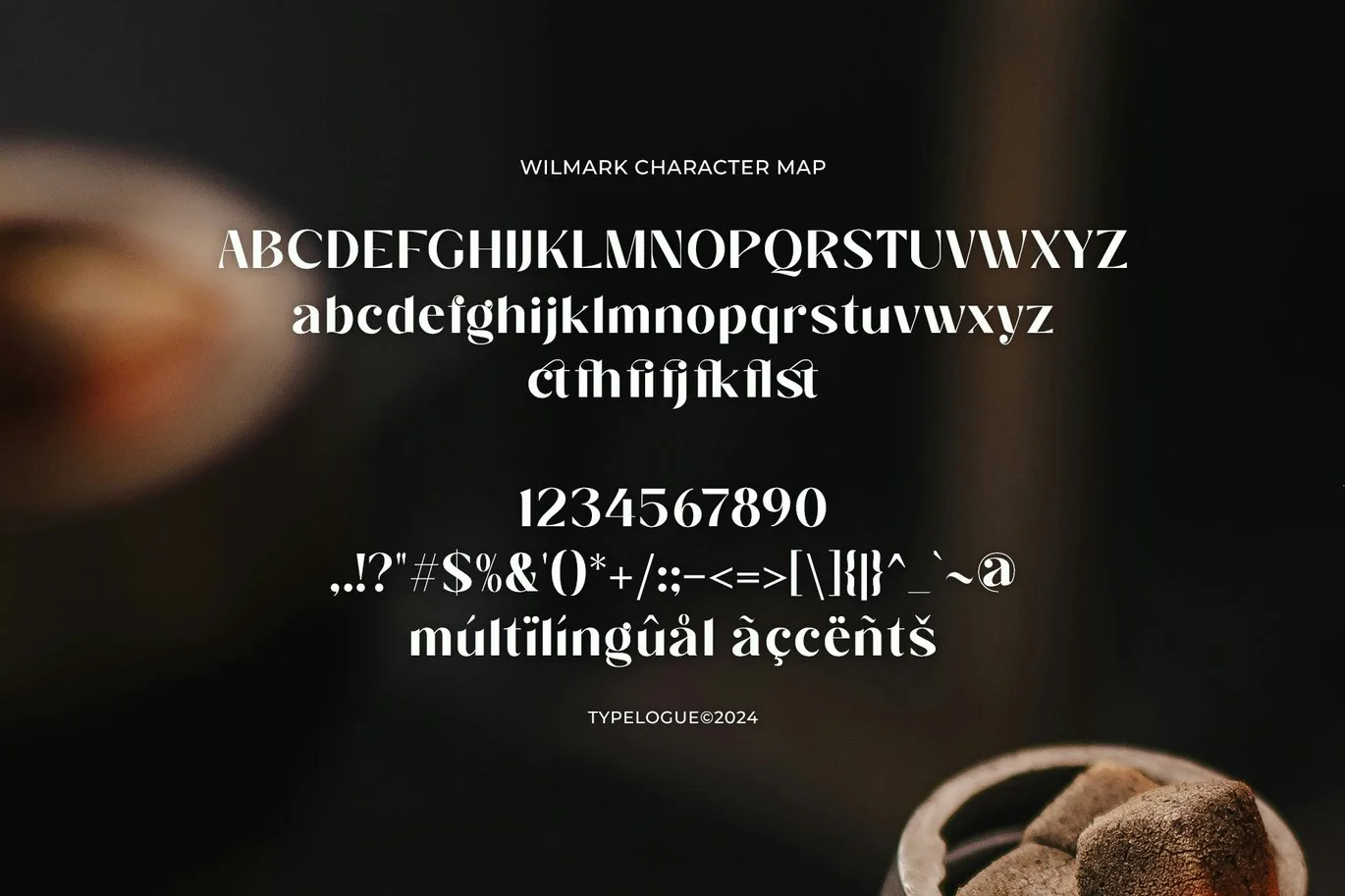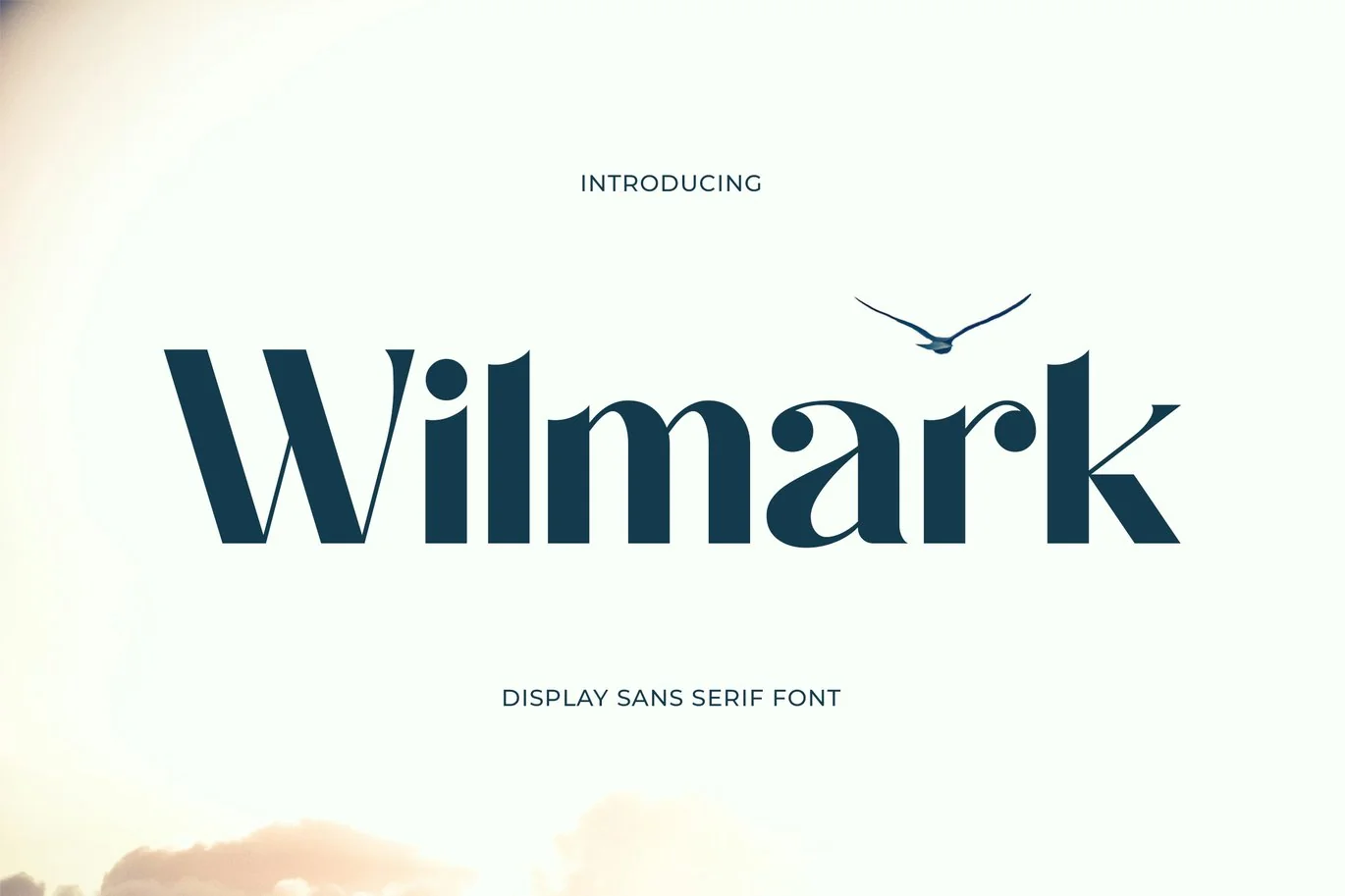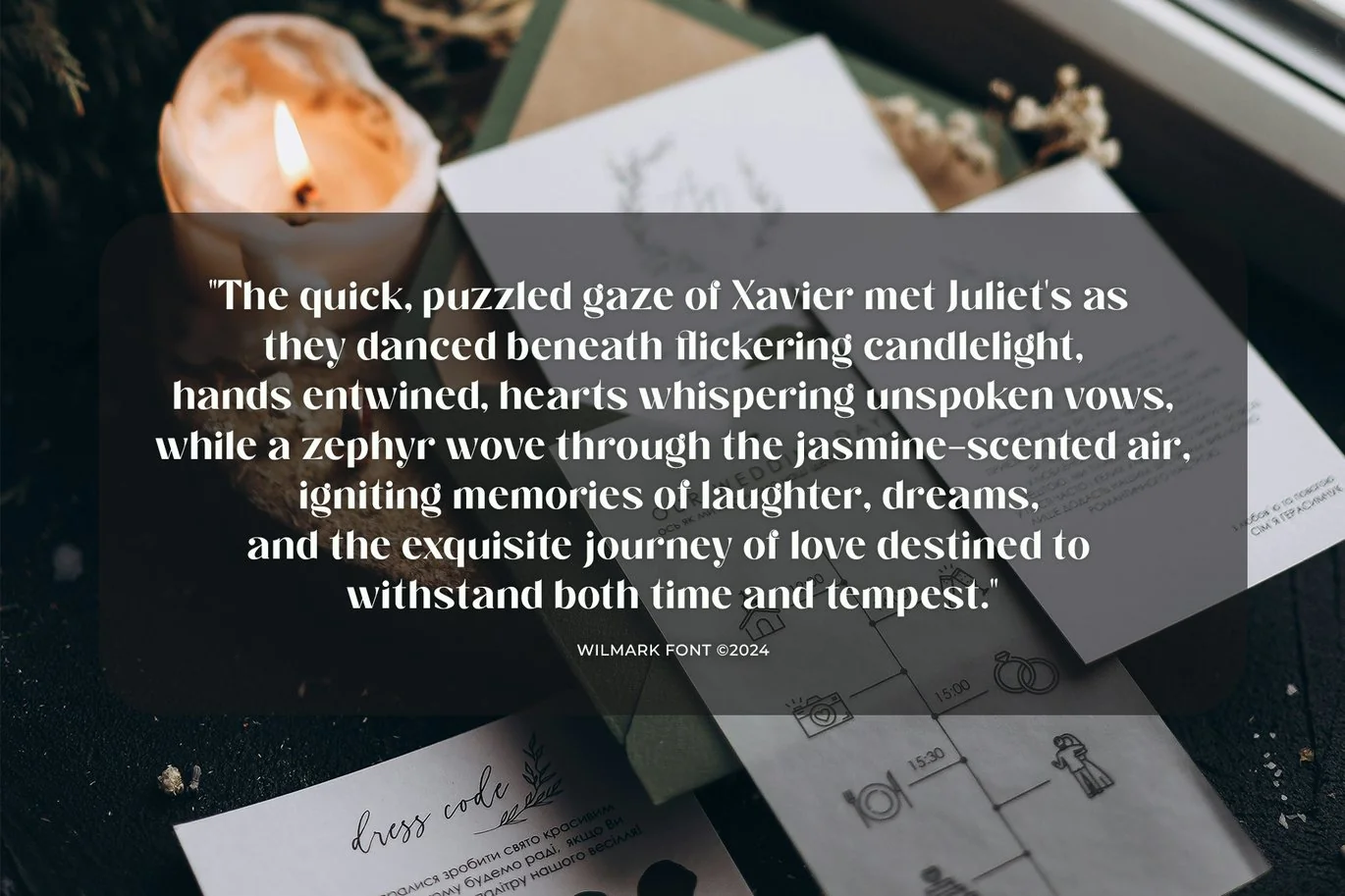
Wilmark – Display Sans Serif Font
Wilmark is a sophisticated and elegant display sans-serif font, designed to bring a sense of refinement and creativity to your designs. With its bold yet graceful letterforms, Wilmark blends classic serif charm with a modern aesthetic, making it perfect for luxury branding, high-end editorial layouts, and stylish digital content.